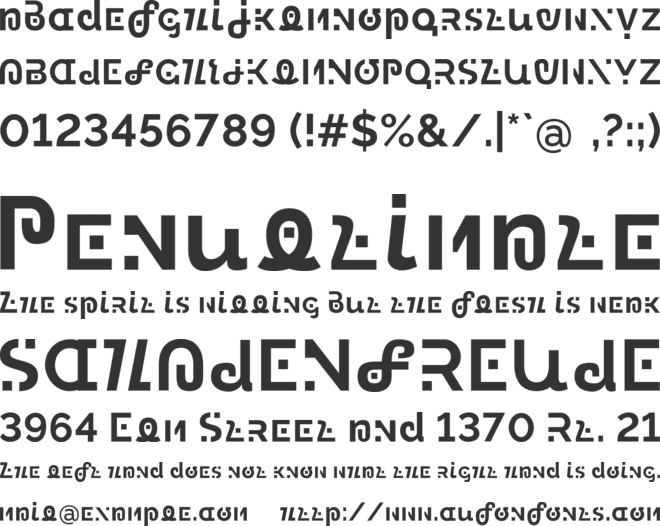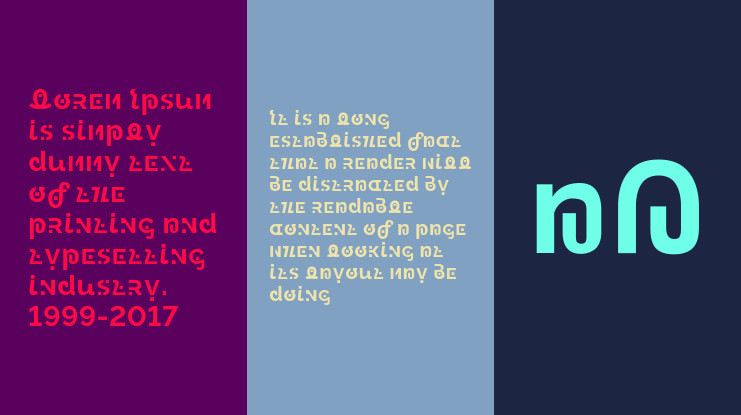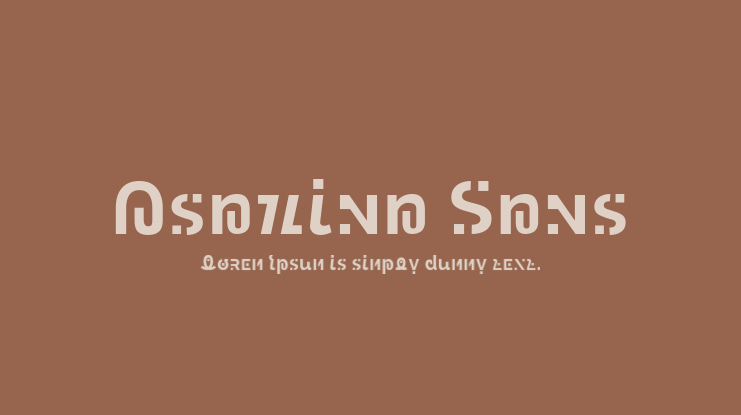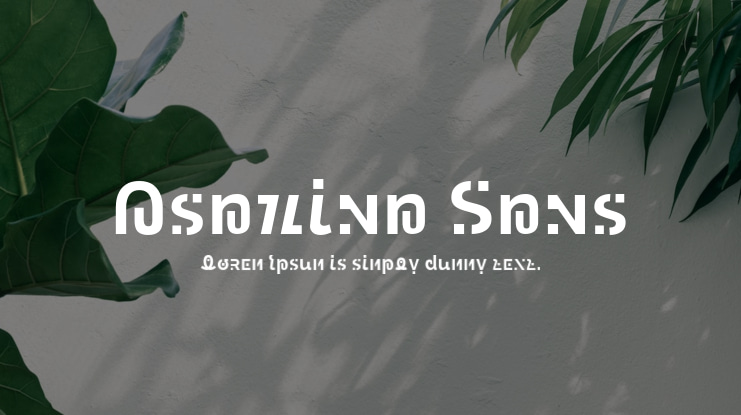
Asahina Sans Font
Asahina Sans is a unique sans-serif font that resembles the witch-like alphabetic style found in Witchy Pretty Cure! The design of this font is inspired by the popular open-source font Raleway, featuring bicameral characters.